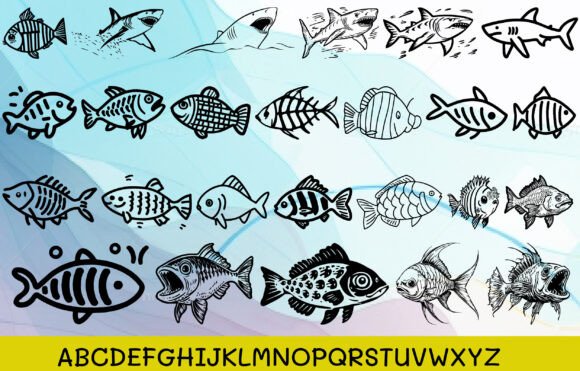
Introduction to Piranha Fish Font
As a designer, have you ever found yourself stuck in a creative rut, searching for the perfect visual element to bring your project to life? You’re not alone. We’ve all been there, scrolling through stock image websites, font libraries, and design communities, hoping to stumble upon that one thing that will make our design stand out. That’s where the Piranha Fish Font comes in – a unique and charming digital product that’s about to become your new favorite design resource.
This delightful font features 26 hand-drawn piranha fish designs, each paired with a letter from A to Z. Whether you’re working on a branding project, crafting a greeting card, or designing a website, the Piranha Fish Font is the perfect addition to your toolkit. With its high-quality designs and transparent background, this font is easy to use and customize, making it a valuable asset for any designer looking to add a touch of aquatic charm to their creative projects.
Piranha Fish Font
- High-quality, vector-based font design, ideal for creative projects requiring a unique and eye-catching typography.
- Features a transparent background, allowing for seamless integration into designs with complex backgrounds or compositions.
- Perfect for designers seeking a unique design resource that adds a touch of whimsy and playfulness to their projects.
- Includes a comprehensive character set, including uppercase and lowercase letters, numbers, and punctuation marks.
Honest Review: Piranha Fish Font
I recently stumbled upon the Piranha Fish Font while searching for a unique design resource for a creative project. As a designer, I’m always on the lookout for high-quality fonts that can add an extra layer of personality to my work.
The Piranha Fish Font is indeed a standout choice, with its bold and playful design. It’s perfect for anyone looking to add a touch of whimsy to their designs. ✨ One of the things I appreciate about this font is its versatility – it can be used for both digital and print projects.
Here are some of the key features of the Piranha Fish Font:
- Transparent background, allowing for seamless integration with other design elements
- High-quality design, ensuring that it will print or display crisply
While the Piranha Fish Font is an excellent choice, I do have a few reservations. ⚠️ One of the limitations is that it may not be suitable for projects that require a more formal or professional tone.
Overall, I’m impressed with the Piranha Fish Font and would highly recommend it to designers looking for a unique and creative design resource.
Introduction to Piranha Fish Font
Tips for Getting the Most Out of Piranha Fish Font
To get the most out of the Piranha Fish Font, try using it in conjunction with other design elements, such as images or shapes. Experiment with different font sizes and colors to create a unique look.
Common Use Cases for Piranha Fish Font
The Piranha Fish Font is ideal for use in a variety of creative projects, including: